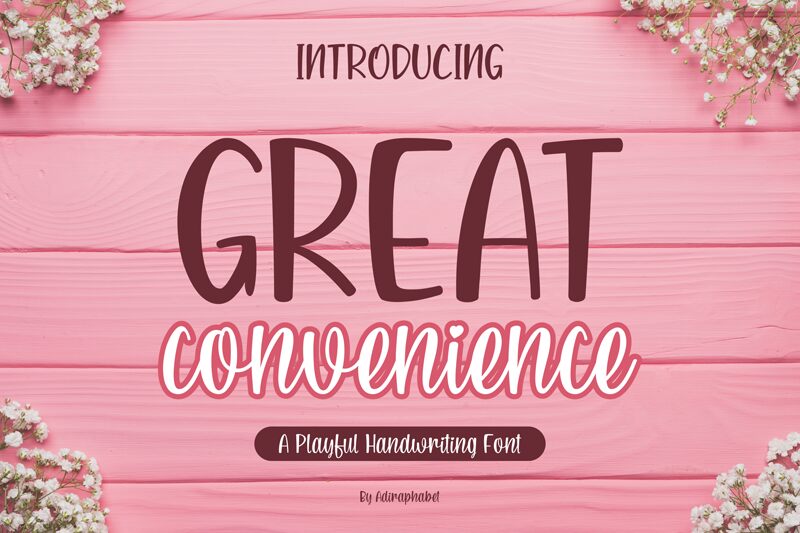
GREAT convenience
GREAT Convenience font, crafted by Septo Adi Wicaksono, captivates with its playful handwritten style and condensed structure. This free font offers a unique blend of informal charm and aesthetic flair, ideal for designers seeking a touch of personality in their projects.
Whether you're working on whimsical branding, creative invitations, or eye-catching social media graphics, GREAT Convenience provides the perfect balance of fun and elegance. Its condensed form enhances readability while adding a distinctive character to any design. Download this captivating font to transform your creative visions into reality today.